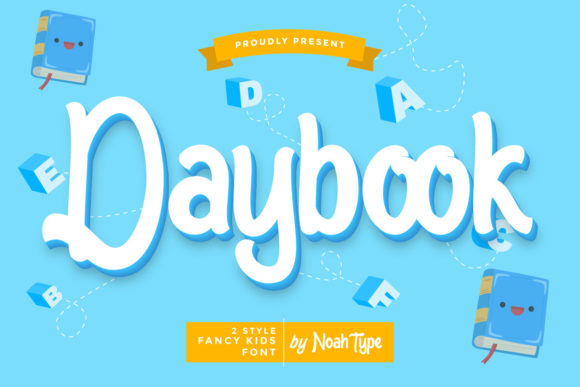
Introduce the Whimsical World of Daybook Font: A Typographic Playground for Playful Designs
In the realm of digital designs where individuality reigns supreme, the Daybook font bursts onto the scene, a captivating display font that dances with the innocence of childhood and the boundless creativity of the young. Adorned with the charm of a comic-handwritten style, Daybook is a typographic masterpiece that transforms ordinary designs into enchanting visual stories.
Immerse yourself in a universe of imagination, where the letters of Daybook dance like playful sprites across the page, evoking the innocent wonder of youth. With its vibrant energy and mischievous charm, Daybook captivates the hearts of designers, artists, and creatives seeking to infuse their designs with a touch of lightheartedness and boundless creativity.
Discover the Magic of Daybook: A Font that Ignites Creativity
Like a kaleidoscope of colors, Daybook's versatility shines through its ability to transform diverse design projects into captivating masterpieces. Unleash your inner child and let your imagination run wild as you craft children's books that come alive with playful characters and enchanting tales. With Daybook, you'll effortlessly create clothing designs that exude the carefree spirit of childhood, capturing the essence of joy and adventure.
Birthdays, celebrations, and special events take on a whole new level of magic when adorned with the whimsical touch of Daybook. Invitations and greeting cards become cherished keepsakes, imbued with the spirit of playful wonder. Logos and branding for children's products and services find their perfect match in Daybook, as it effortlessly conveys the essence of youthfulness and limitless possibilities.
Explore the Endless Possibilities of Daybook: A Font That Speaks to the Soul
Daybook is more than just a font; it's a portal to a world where imagination reigns supreme. Whether you're designing school projects, creating captivating packaging for children's products, or adding a touch of whimsy to houseware designs, Daybook stands as your faithful companion, transforming each project into a symphony of creativity.
Join the ranks of inspired designers who have discovered the magic of Daybook, a font that speaks directly to the heart, evoking a sense of nostalgia and sheer delight. Let Daybook ignite your imagination, fuel your creativity, and transform your designs into captivating visual feasts that leave a lasting impression.
Embrace the playful spirit of Daybook, let your imagination soar, and embark on a creative journey that knows no bounds.